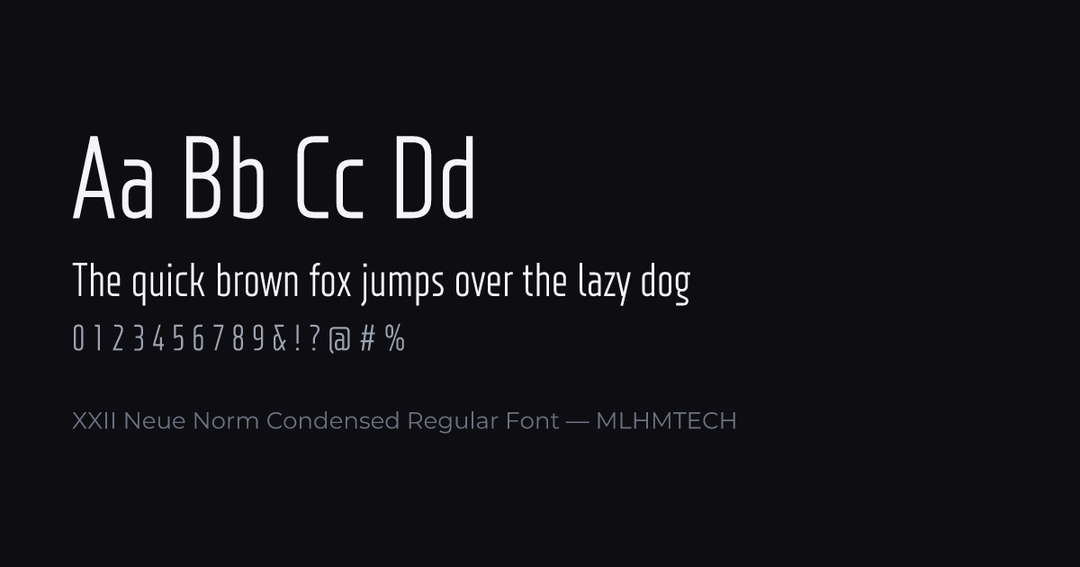
XXII Neue Norm Condensed Regular Font
A modern, geometric condensed sans-serif font. Ideal for bold headlines, branding, and video titles that need a clean, impactful look.
XXII Neue Norm Condensed Regular is a contemporary sans-serif typeface with a condensed, geometric structure. Its clean lines and uniform strokes give it a modern, minimal aesthetic that works well for display purposes. The font is highly legible even at small sizes, making it versatile for both print and digital media.
This font is perfect for creating strong visual hierarchy in your projects. Use it for headlines, titles, logos, posters, and video graphics. Its condensed nature allows you to fit more characters in a limited space without sacrificing readability, making it a practical choice for UI design, packaging, and advertising.